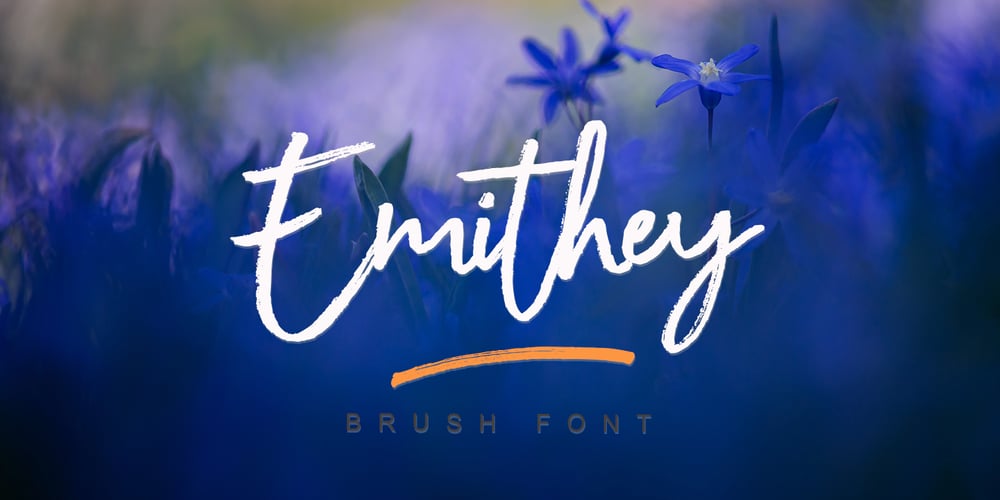
Emithey Brush Font Family was designed by Yur Lis and published by Stripes Studio. Emithey Brush contains 2 styles and family package options. Hi, Introducing the latest styles Emithey Brush with the kind of modern hand scratches, I hope you are interested in this font, if you want to use for your work this font can be used easily and simply because there are a lot of features in it to contain a complete set of letters lower and uppercase letters, assorted punctuation, numbers, and multilingual support. font also contains several ligatures and alternate style Stylistic.